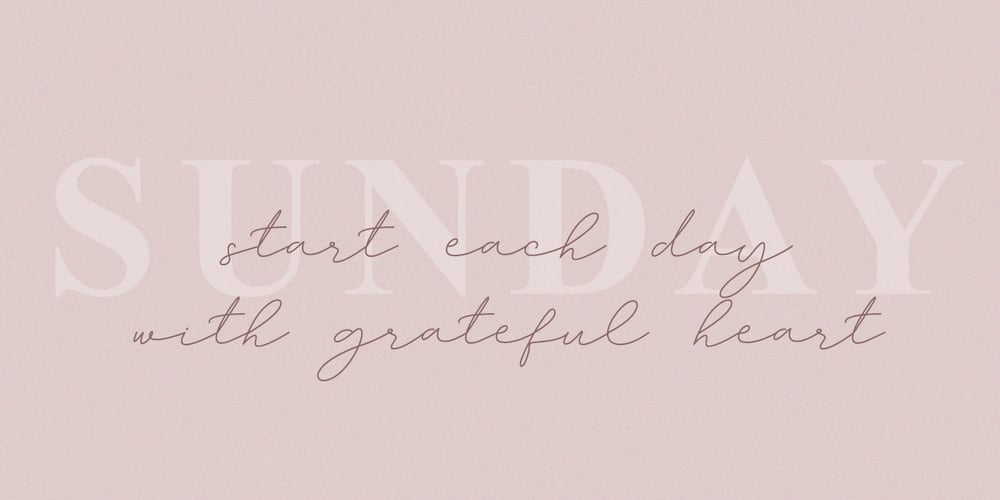
Amalina Script Font Family was designed by Rangga Subekti and published by Subectype. Amalina Script contains 1 styles and family package options. Amalina Script – a new modern and fresh Monoline script, elegant, natural, stylish and perfect for any awesome projects that needs a handwritten touch. Amalina is great for photography, watermark, social media posts, advertisements, logos & branding, invitation, product designs, label, stationery, wedding designs, product packaging, special events and many more.